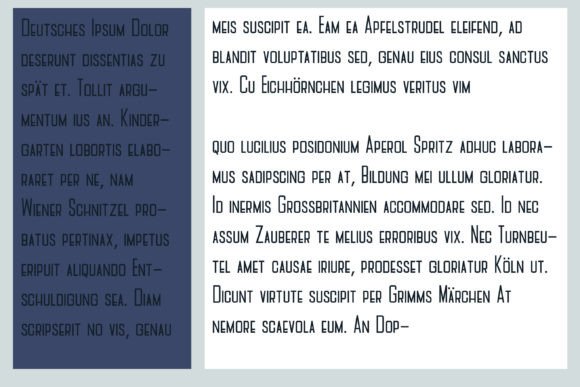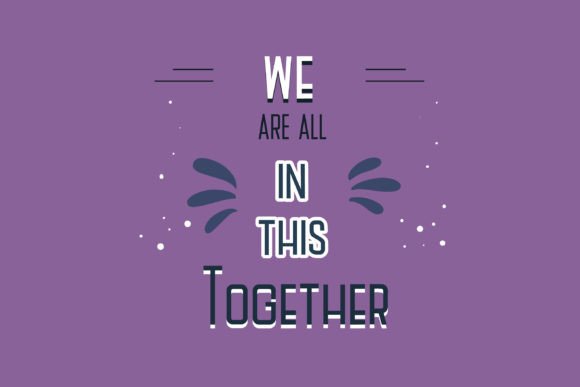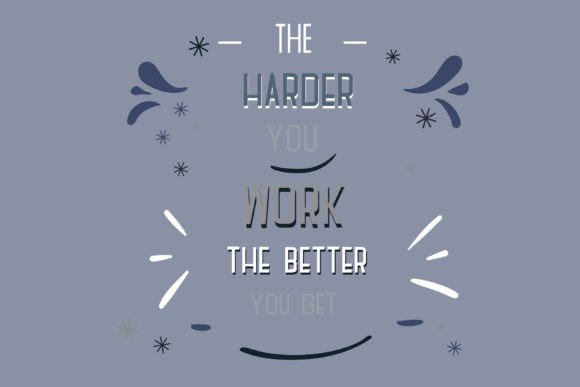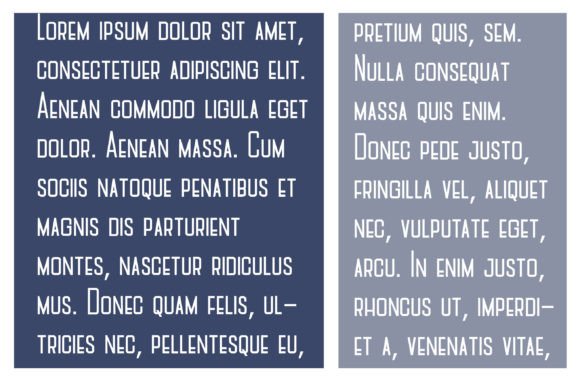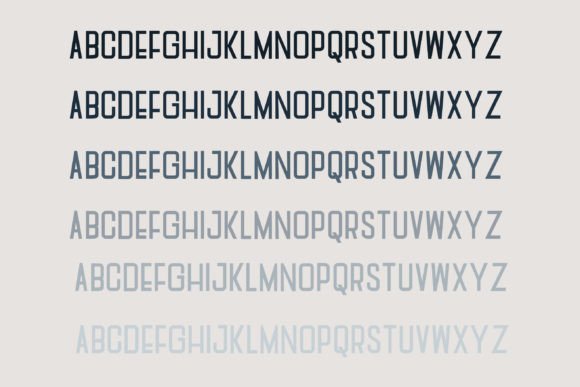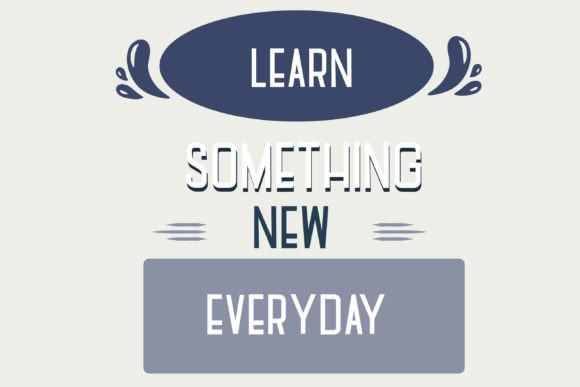
Introduction to Missionary Font
This hand-crafted sans serif is boxy and futuristic.
Light version included A hand-crafted font is a font that is designed to look like it was written by hand.
Key Features of Missionary Font
Why Choose Missionary Font?